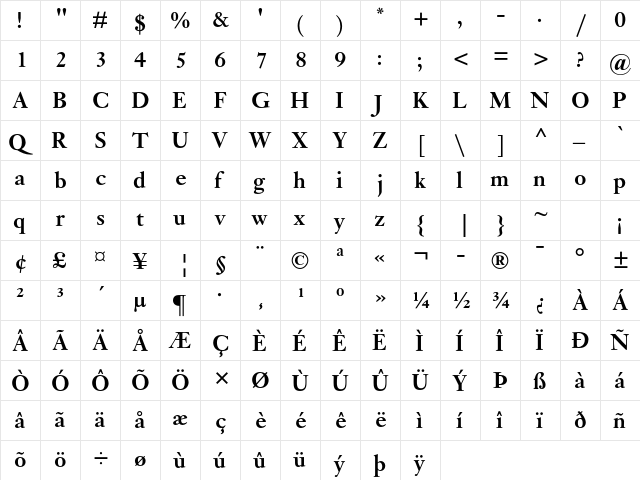
Janson MT Std Bold
Design Context for Janson MT Std Typeface
Janson MT Std takes a measured approach to typography — its balanced proportions and neutral character make it a reliable workhorse for both digital and print work. The heavy weight commands attention and anchors typographic hierarchies.